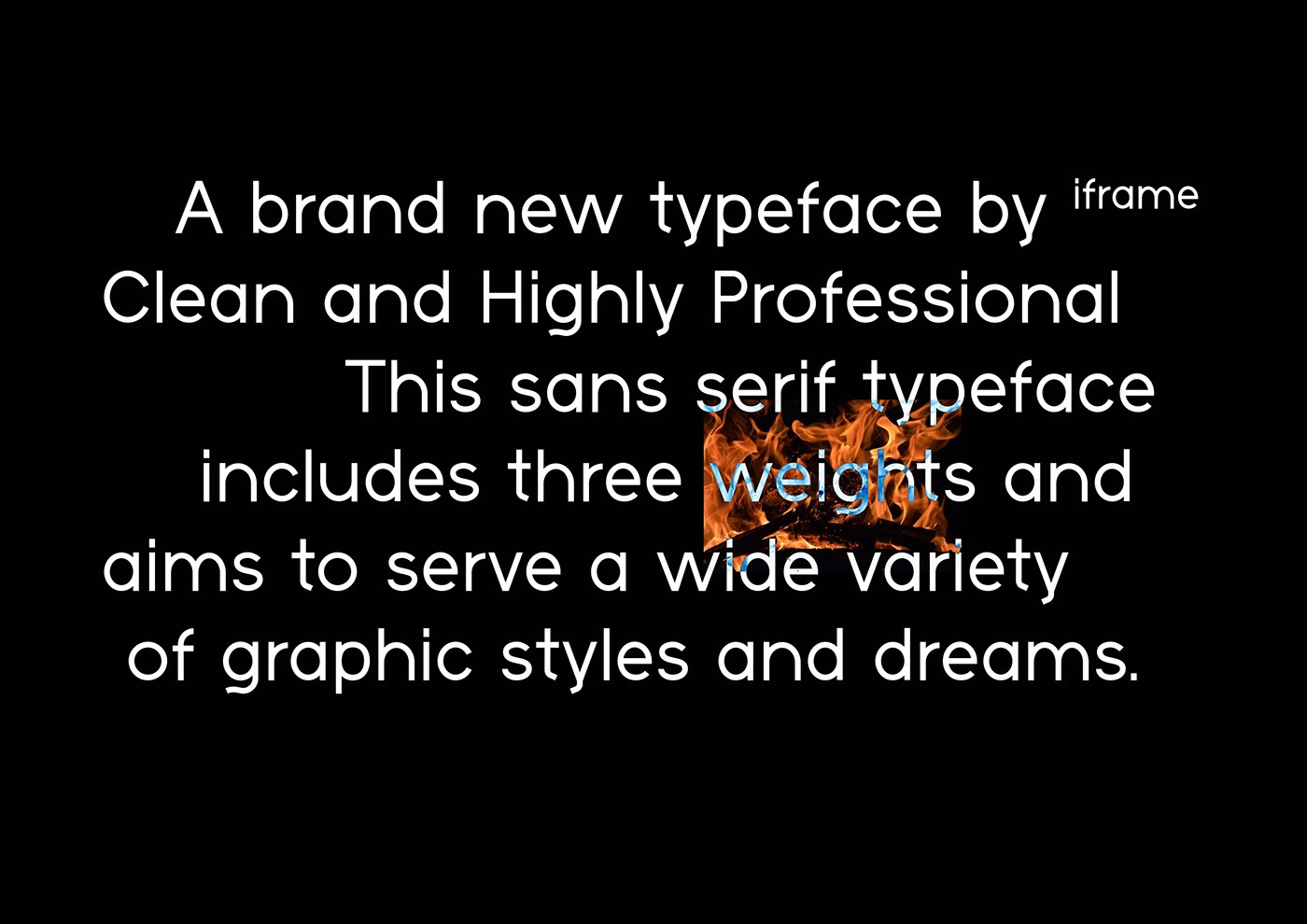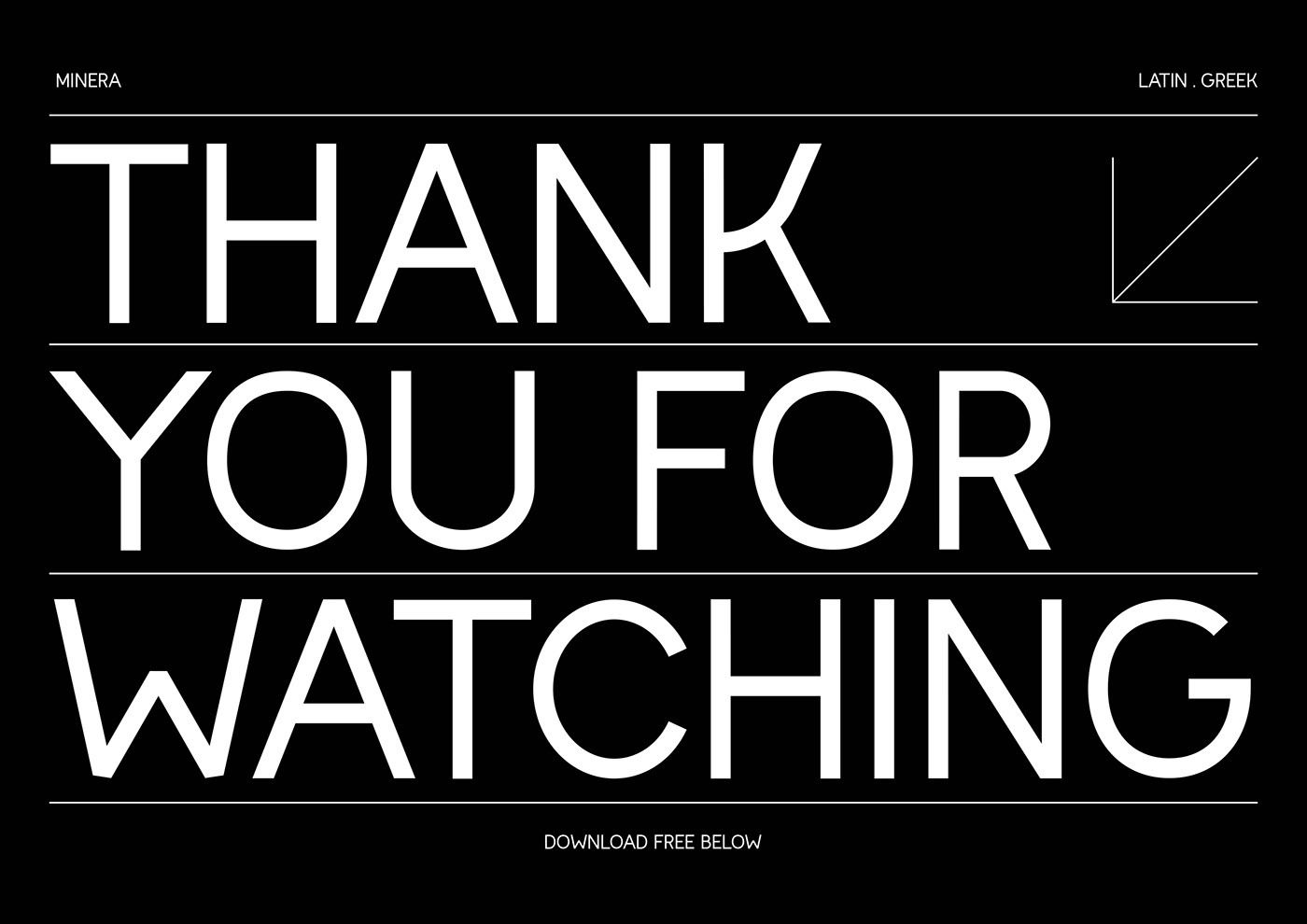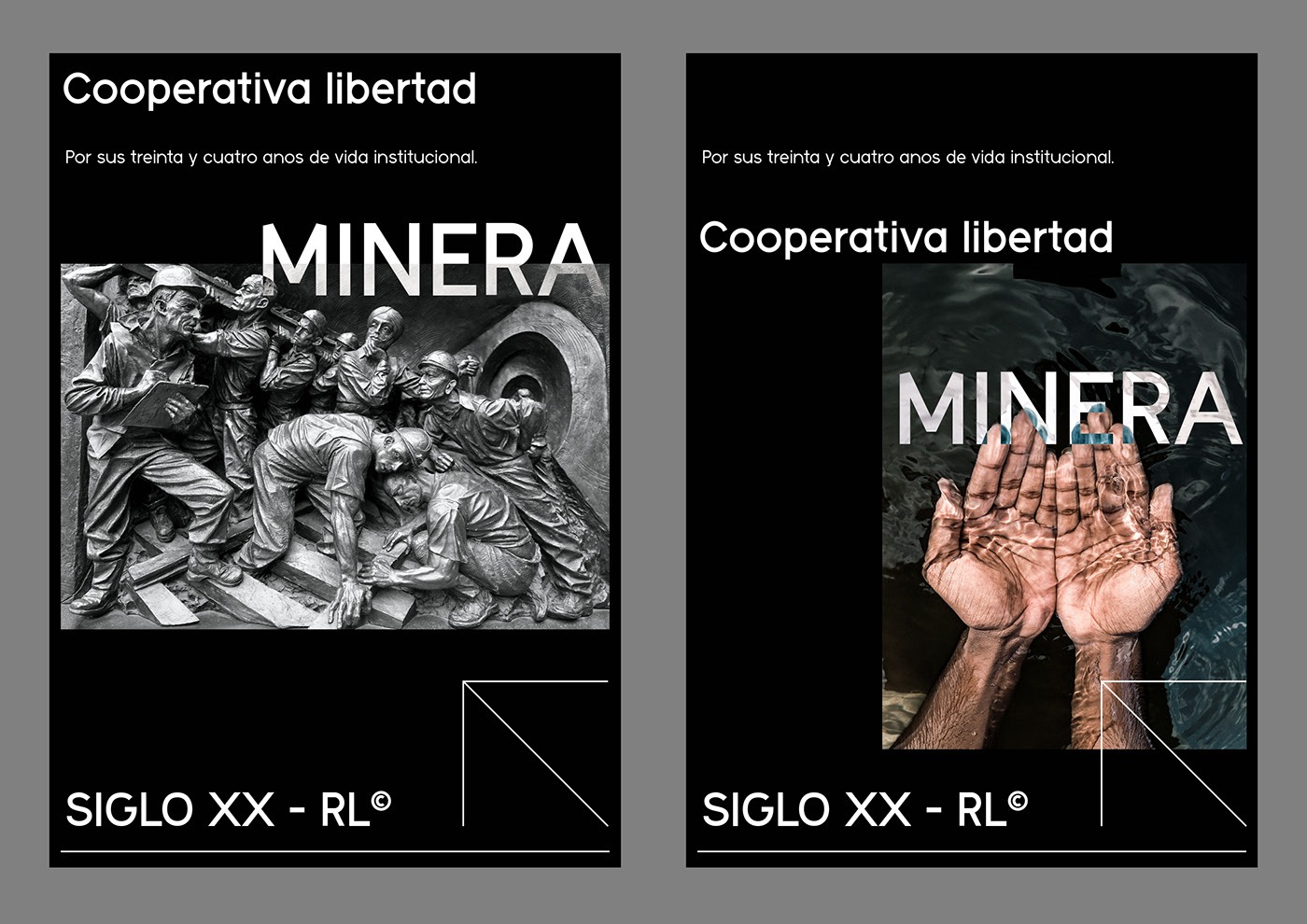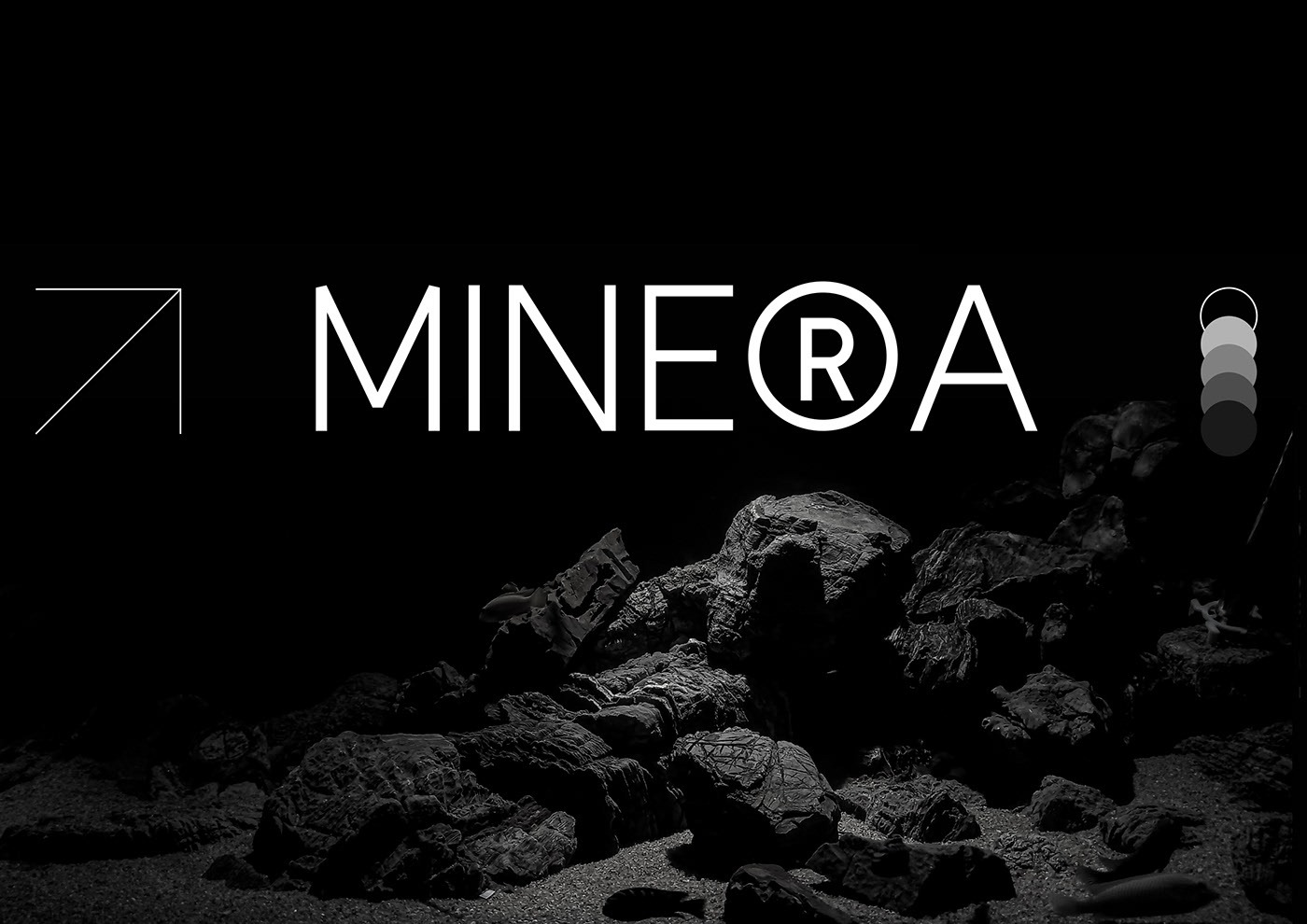
IF Minera Sans Serif Font is a well-balanced font family it was designed with focus on legibility, lively details and a kind of a rough but pleasant texture. The IF Minera Font family gives your text a unique, powerful style. It’s perfectly proportioned and is an excellent choice for captions, navigation systems, and anything that requires concise, accurate language.